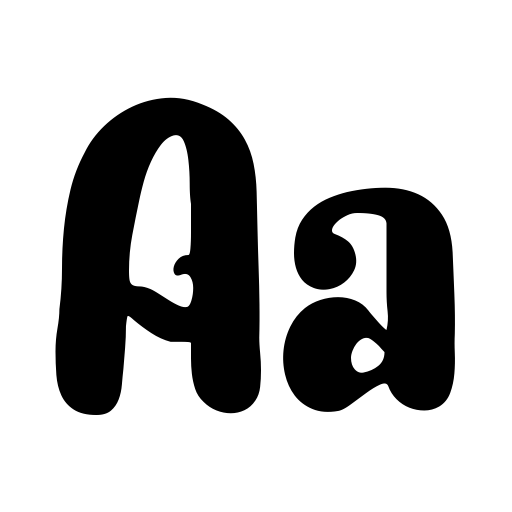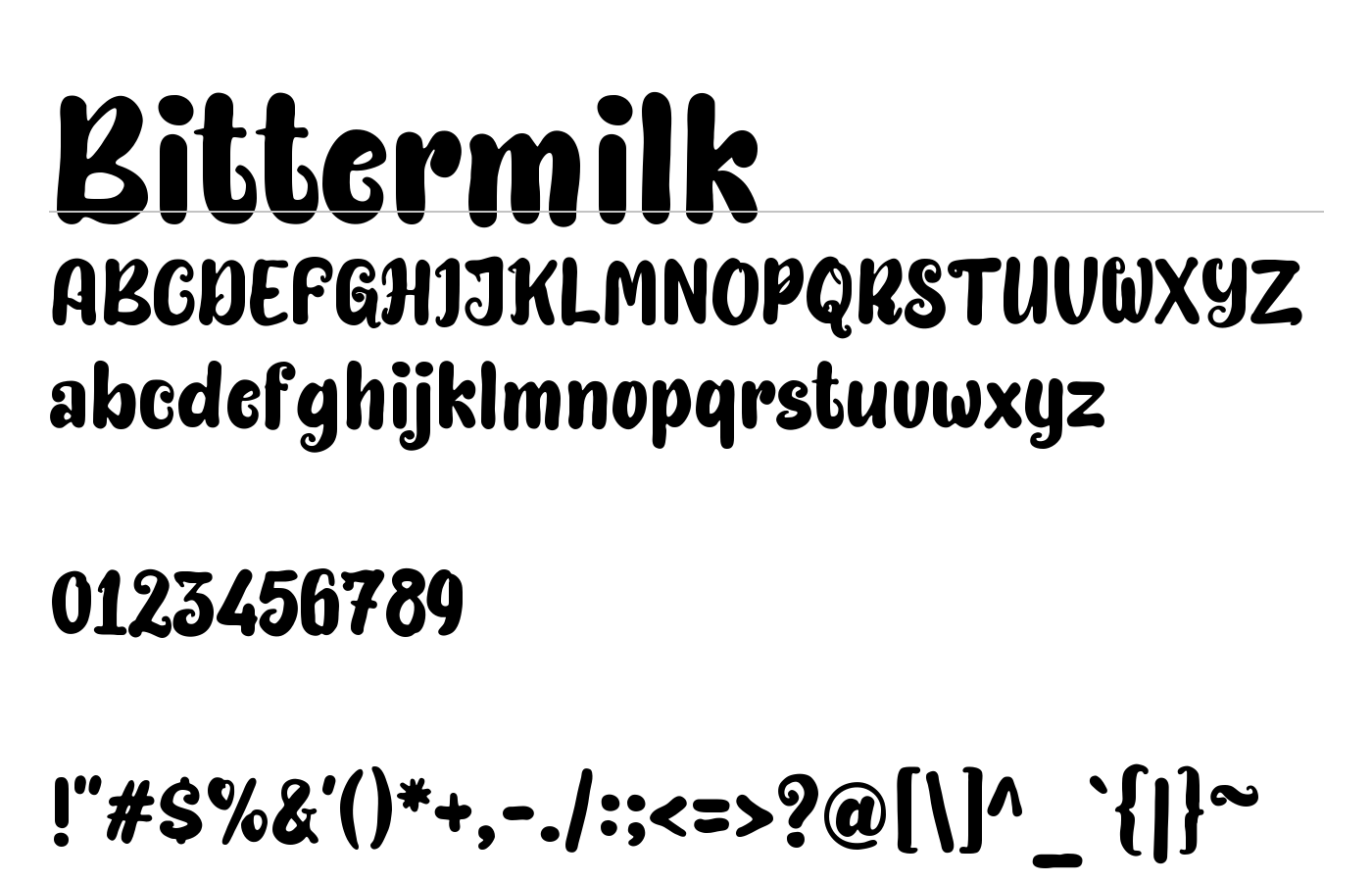
Bittermilk is a bold, playful serif font with a strong personality, featuring rounded serifs and a slightly condensed, chunky structure. Its whimsical shapes and consistent stroke weight make it feel friendly and approachable, perfect for brands or designs seeking a vintage yet casual vibe. This font works well in headlines and logos where a fun, distinctive look is desired, adding a charming handcrafted touch without sacrificing readability.
Bittermilk Font